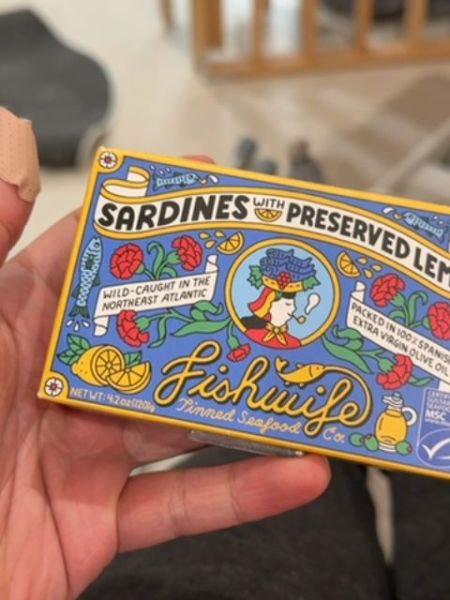
Fishwife Sardines with Preserved Lemon
These are sardines packed with preserved lemon, wild-caught in the Northeast Atlantic.
The typography uses a combination of bold sans-serif fonts for 'Sardines with Preserved Lemon' which enhances readability and draws immediate attention. The 'Fishwife' logo is in a stylized script font, evoking a playful yet artisanal feel.
The packaging is vibrant and colorful, featuring an illustration of a woman carrying fish, surrounded by lemons and flowers. The bold use of primary colors makes it visually striking and engaging.
- Wild-caught in the Northeast Atlantic.
- Packed in 100% Spanish extra virgin olive oil.
- Contains preserved lemon for added flavor.